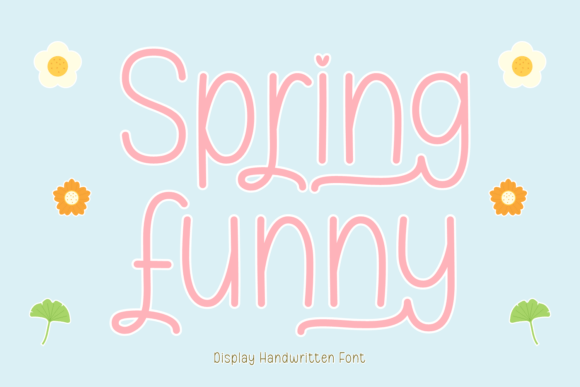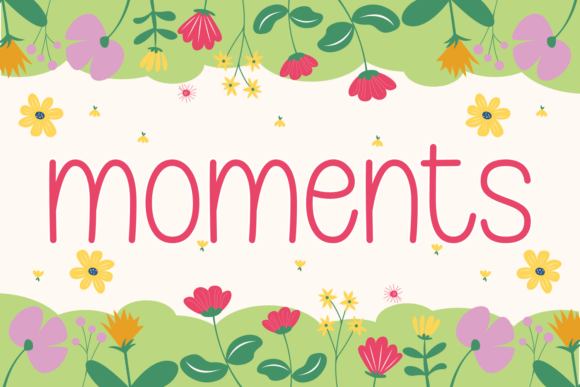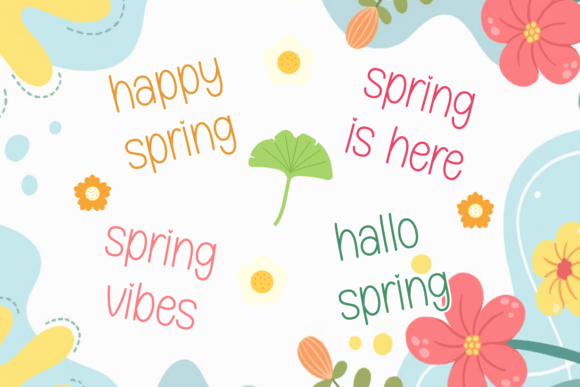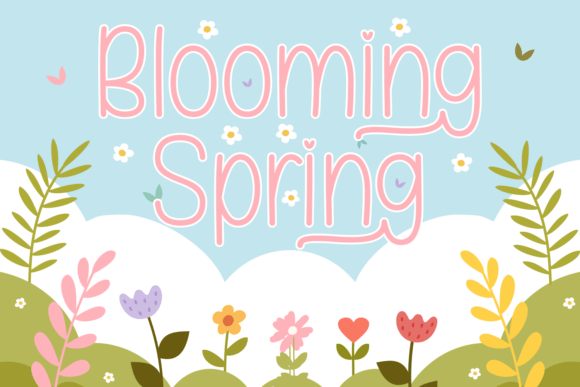
Spring Funny Font: A Cute Handwritten Font for Cricut & Crafts
About the Spring Funny Font
Introducing the Spring Funny Font, a beautifully crafted typeface designed to elevate your creative projects. Immerse yourself in the world of chic typography with Spring Funny. Perfect for your magazine, book, or monoline projects, they trend with absolute beauty and sophistication. Spruce up your logos, print materials, fashion apparel, and displays, or add a playful touch to your crafts – these fonts have the versatility to do it all. Celebrate every season with our array of typefaces, not just the bright and chirpy spring. We’ve got summer vibes, autumn leaves, and winter frost carefully captured and distilled in our fonts topped with a cool factor that’s hard to miss. Whether it’s Valentine’s Day, Christmas, Mother’s Day or Father’s Day, you’ll always be at the height of creativity. Blossoming flower fonts, fancy wedding typefaces, and holiday cheer are all part of our font selection. Crafted not only for Cricut, Sublimation, and SVG, this collection of playful fonts are perfect for lettering projects as well. Hypnotize your audience with our trendsetting “Spring Funny Minimalist Fonts.”
Spring Funny Font Usage Examples
Spring Funny Font Example